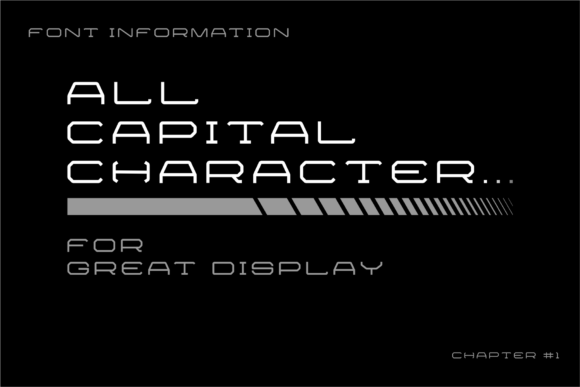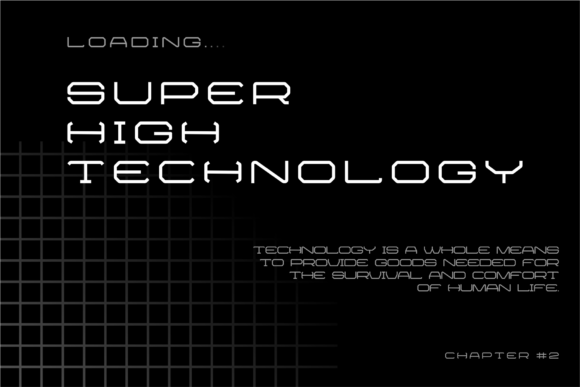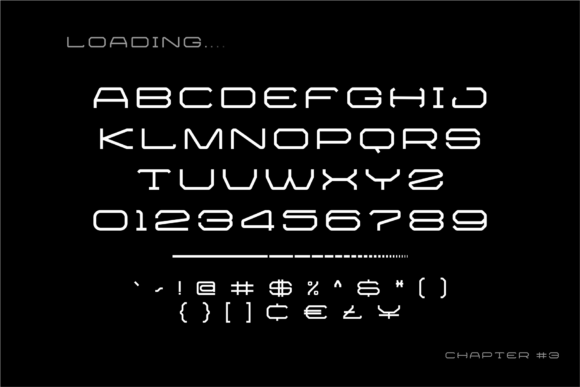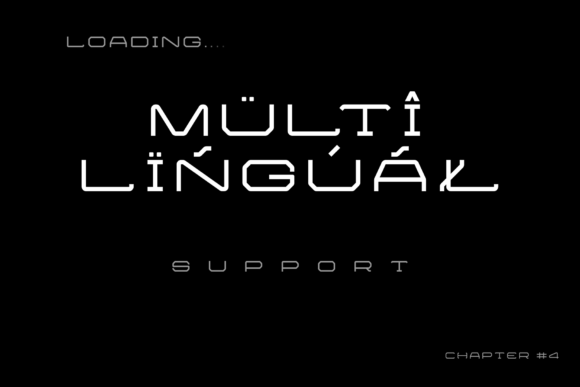
Cread Font: Elevate Your Design with a Modern Technological Style
In the world of design, fonts play a crucial role in conveying the message and aesthetic of a project. For designers and crafters looking to add a touch of modernity and technology to their work, Cread Font is an excellent choice. This display font features a distinctly technological style that will take any design idea to the next level.
What is Cread Font?
Cread Font is a modern display font designed to make a statement. Its sleek and futuristic design makes it perfect for projects that require a technological edge. Whether you’re working on a logo, branding materials, or digital media, Cread Font is sure to impress.
Key Features of Cread Font
- Modern and Technological Style: Cread Font boasts a unique and contemporary design that screams technology and innovation.
- Display Font: This font is specifically designed for display purposes, making it ideal for headlines, titles, and other attention-grabbing elements.
- Versatile: Cread Font can be used in a wide range of design projects, from digital media to print materials.
- Easily Readable: Despite its futuristic design, Cread Font remains easily readable, even at smaller sizes.
Benefits of Using Cread Font
So, why choose Cread Font for your design projects? Here are just a few benefits:
- Adds a Touch of Modernity: Cread Font’s sleek design instantly adds a modern touch to any project.
- Enhances Brand Identity: This font can help create a strong brand identity that resonates with tech-savvy audiences.
- Improves Readability: Cread Font’s clear and concise design ensures that your message gets across quickly and efficiently.
- Versatile and Adaptable: This font can be used in a wide range of design projects, making it a valuable addition to any design library.
Design Ideas Using Cread Font
So, how can you use Cread Font in your design projects? Here are a few ideas to get you started:
- Logo Design: Use Cread Font to create a modern and memorable logo that reflects your brand’s technological edge.
- Branding Materials: Apply Cread Font to your branding materials, such as business cards, brochures, and letterheads, to create a cohesive and professional look.
- Digital Media: Use Cread Font in your digital media projects, such as website headers, social media graphics, and email newsletters, to add a touch of modernity and technology.
- Print Materials: Apply Cread Font to your print materials, such as posters, flyers, and billboards, to grab attention and convey a sense of innovation.
Tips for Using Cread Font Effectively
To get the most out of Cread Font, here are a few tips to keep in mind:
- Use it Sparingly: Cread Font is a display font, so use it sparingly to avoid overwhelming your design.
- Pair it with Other Fonts: Experiment with pairing Cread Font with other fonts to create a unique and visually appealing design.
- Adjust Font Size and Color: Play around with font size and color to ensure that Cread Font complements your design and enhances your message.
In conclusion, Cread Font is an excellent choice for designers and crafters looking to add a touch of modernity and technology to their work. With its sleek and futuristic design, this display font is sure to take any design idea to the next level. Whether you’re working on a logo, branding materials, or digital media, Cread Font is a versatile and effective solution.